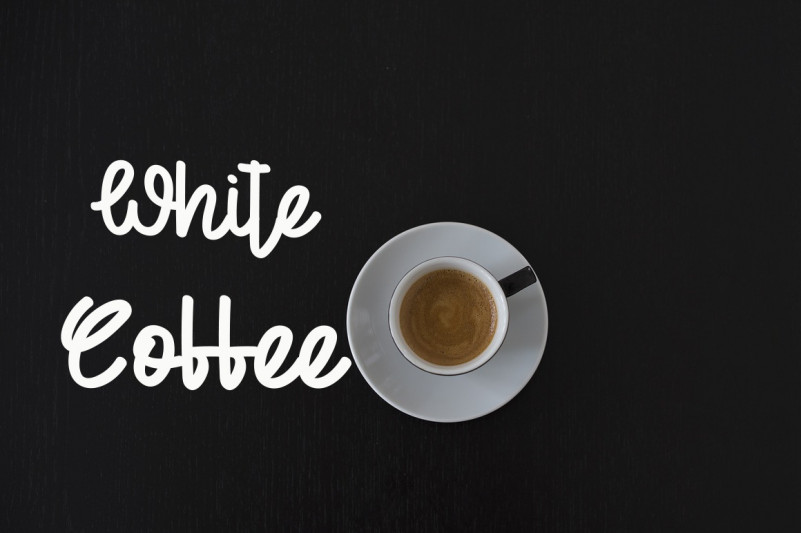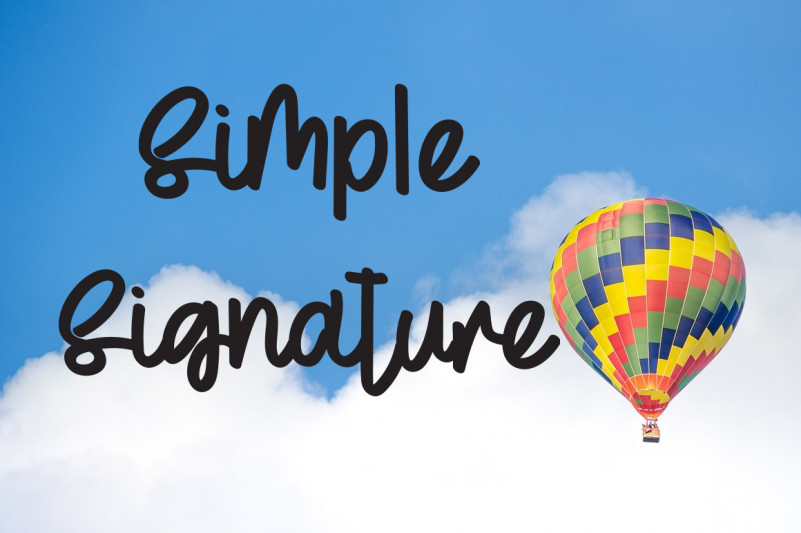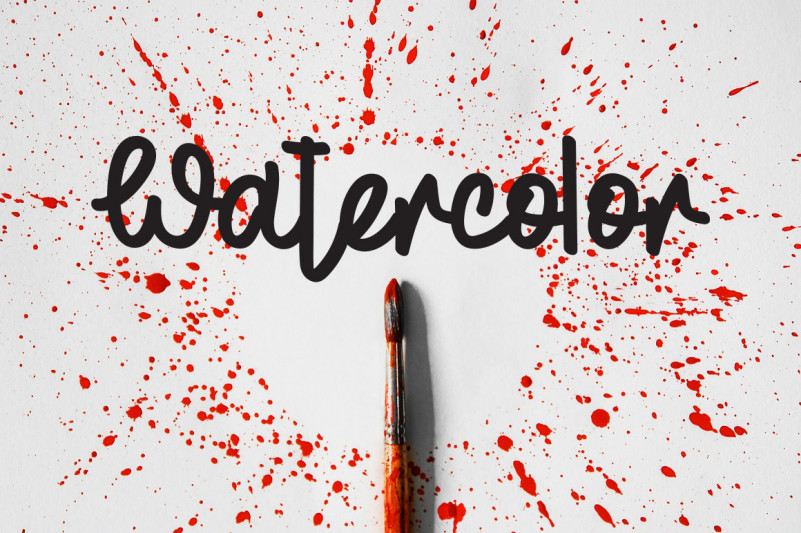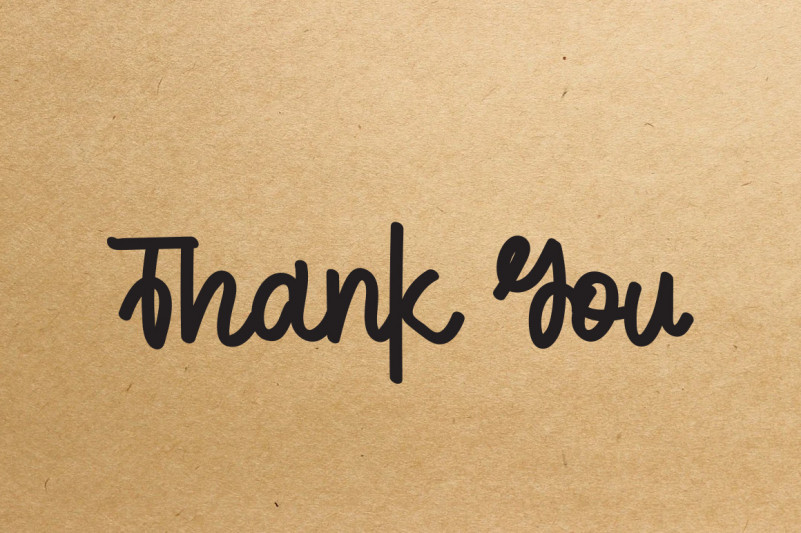
Simple Summer Script Font
This is a fun handwritten font. It features a casual style that makes it perfect for greeting cards, stationery, logos and more!